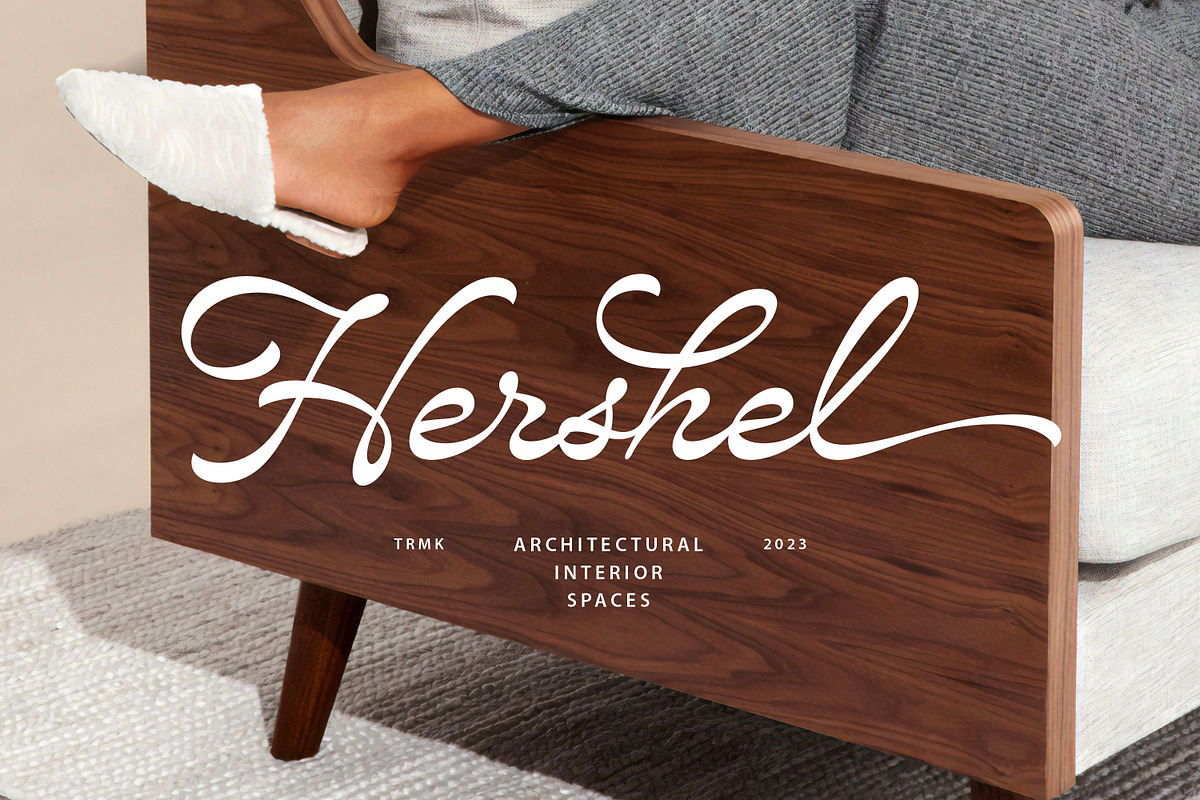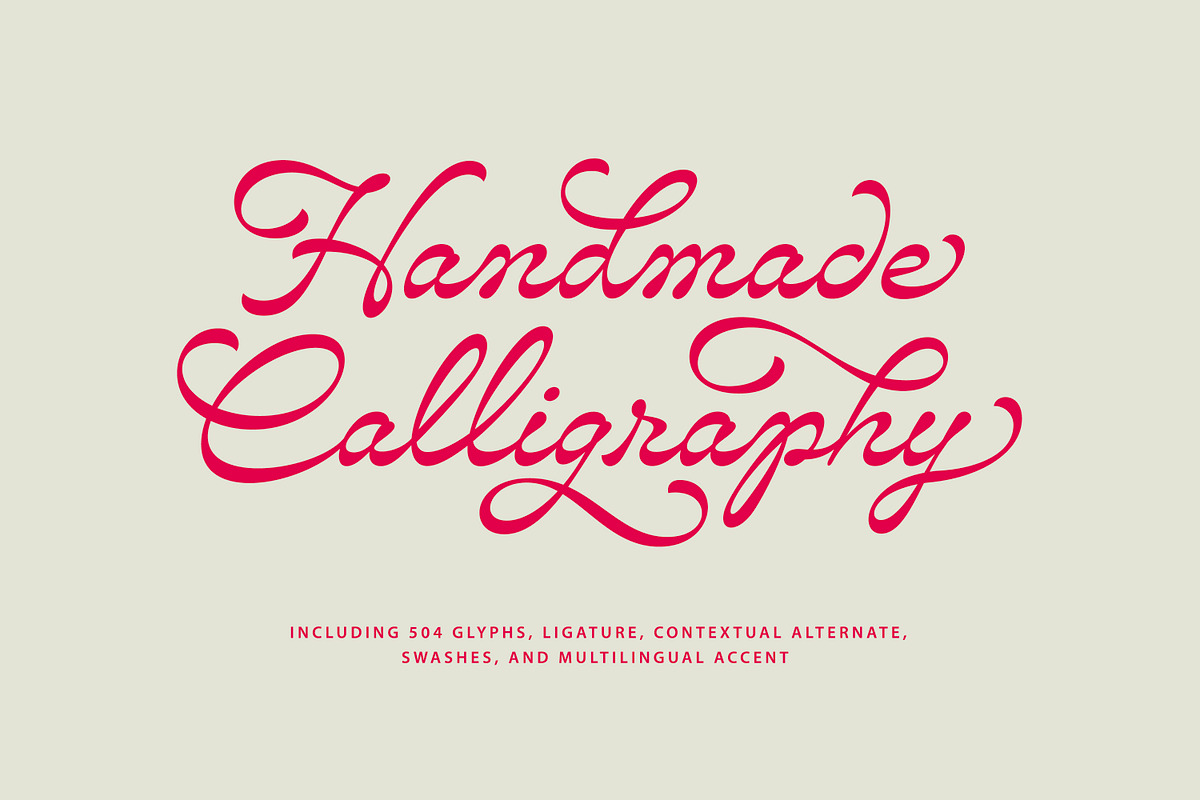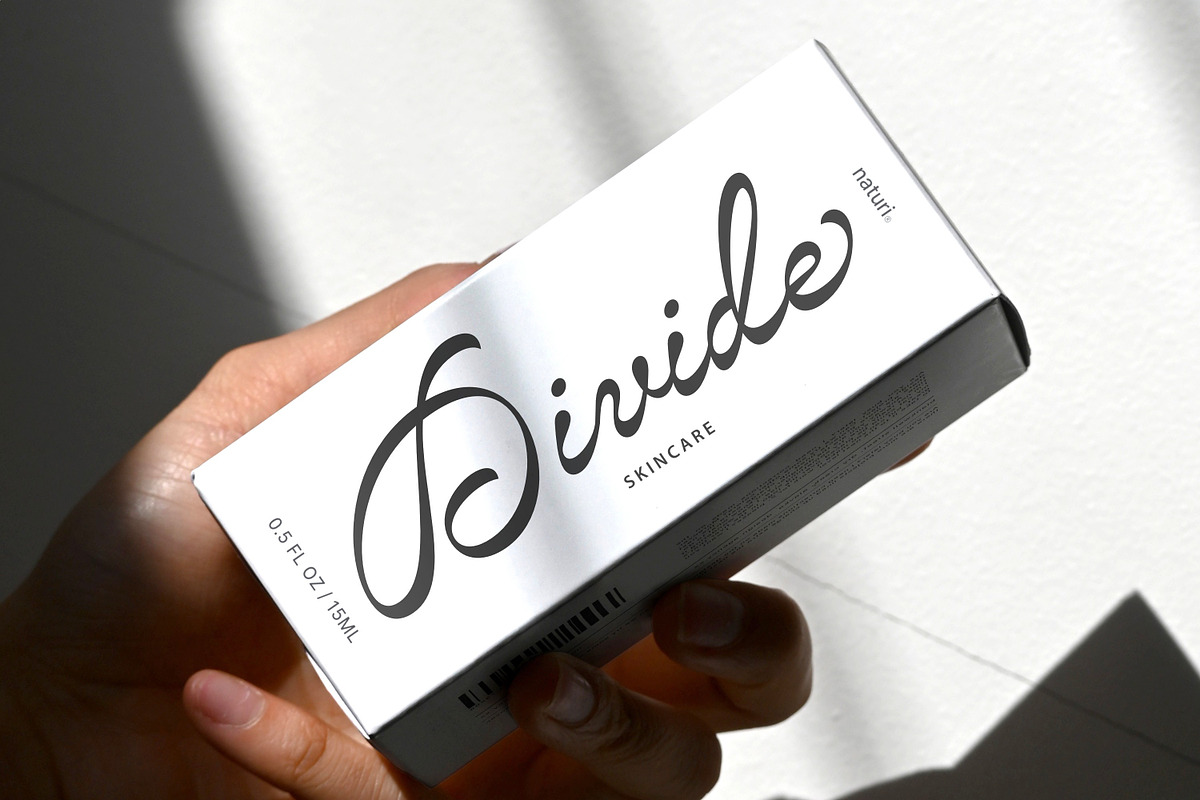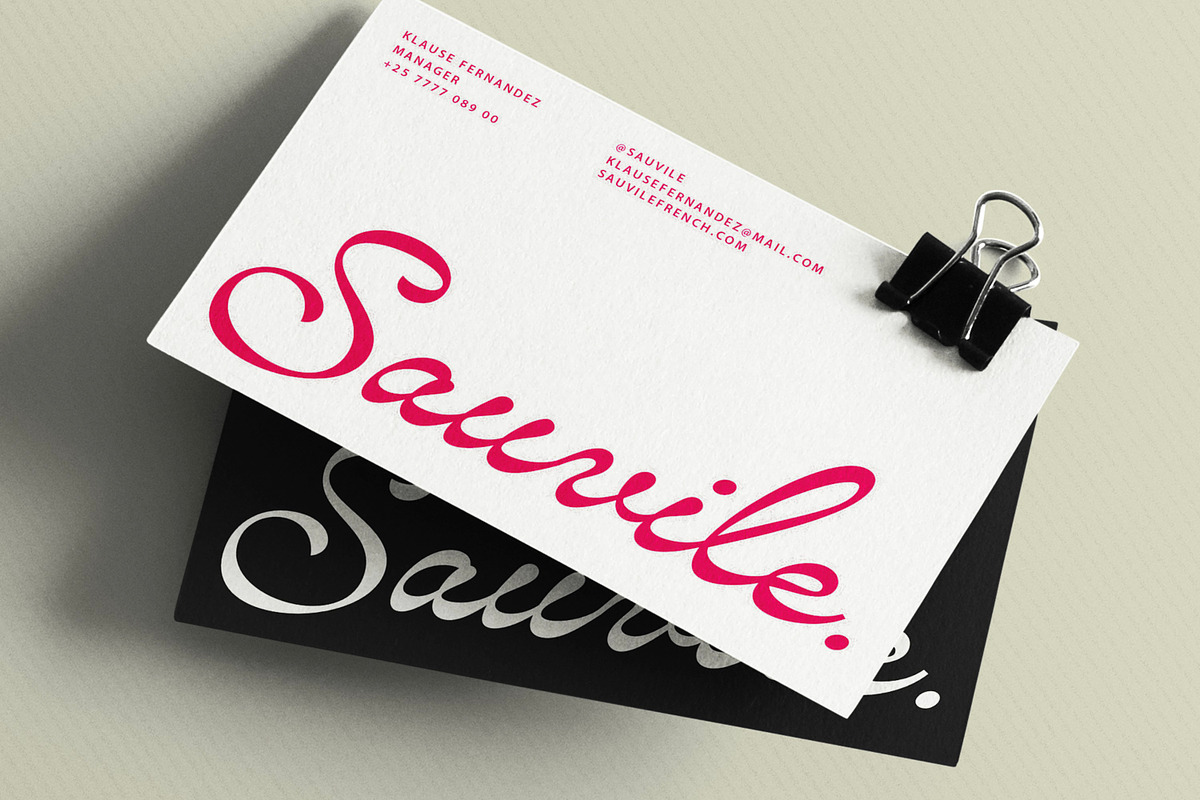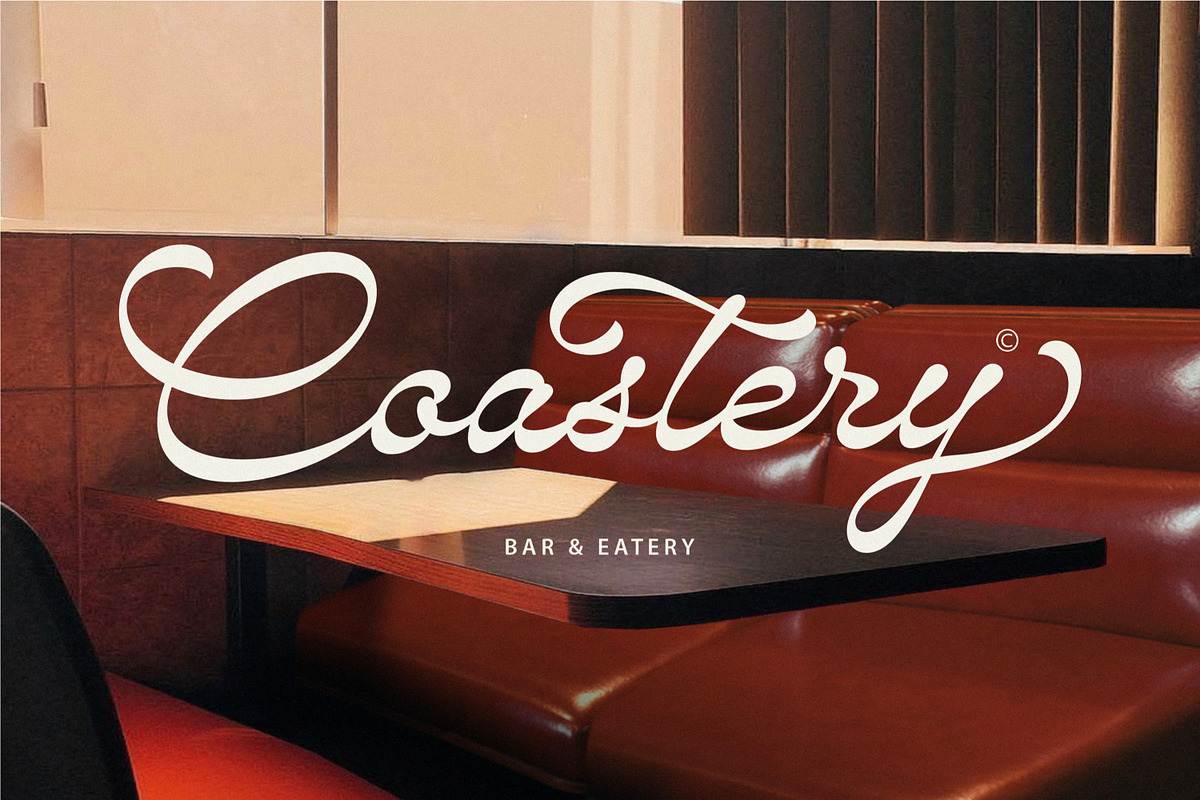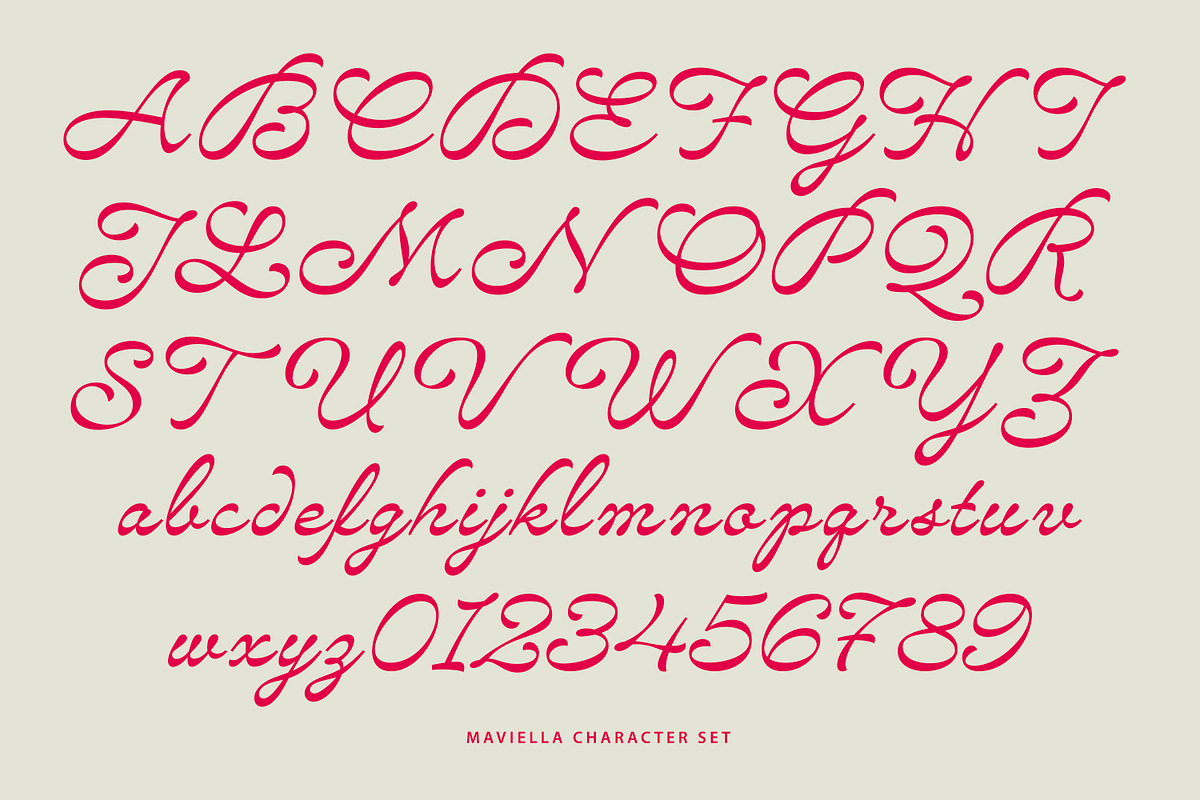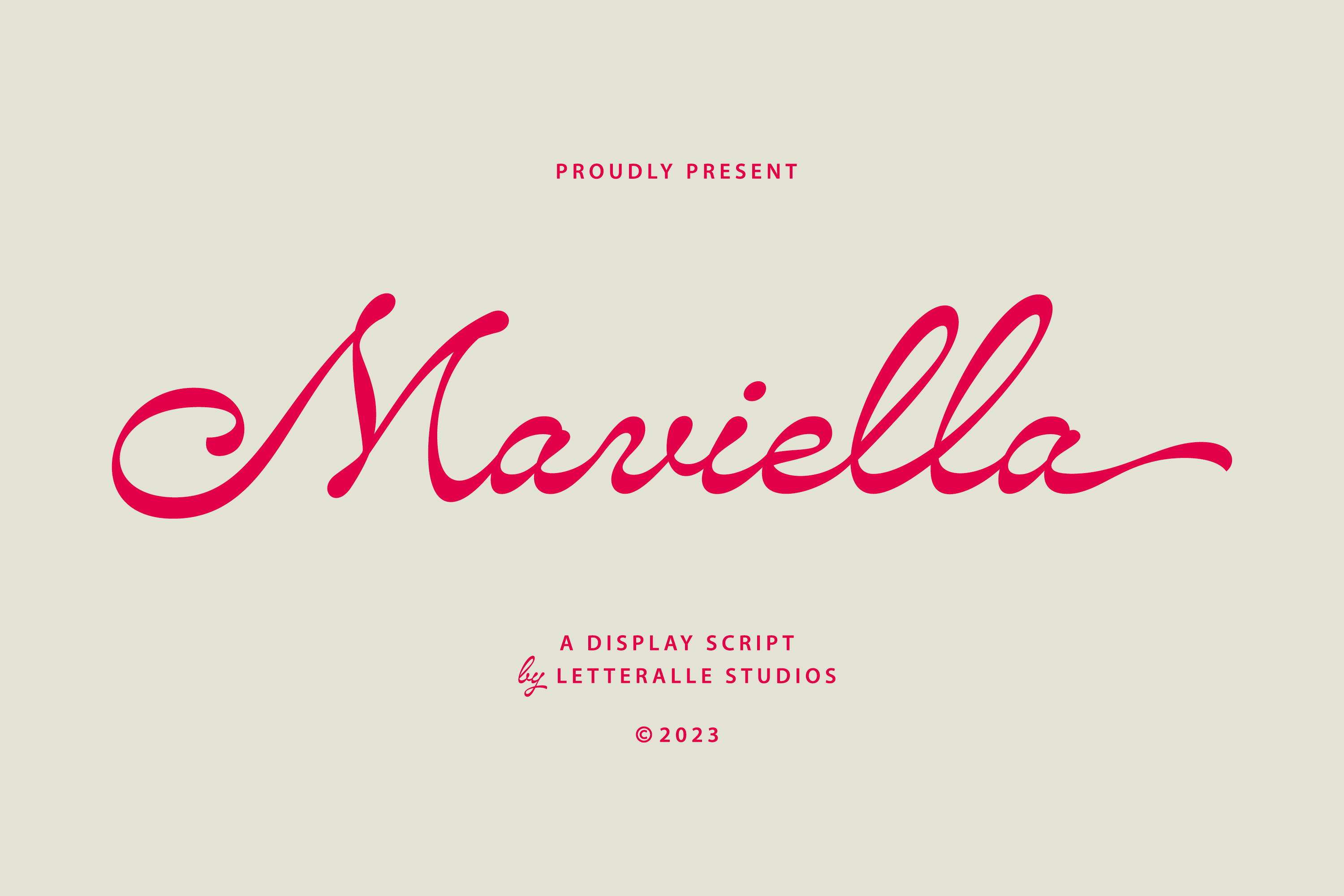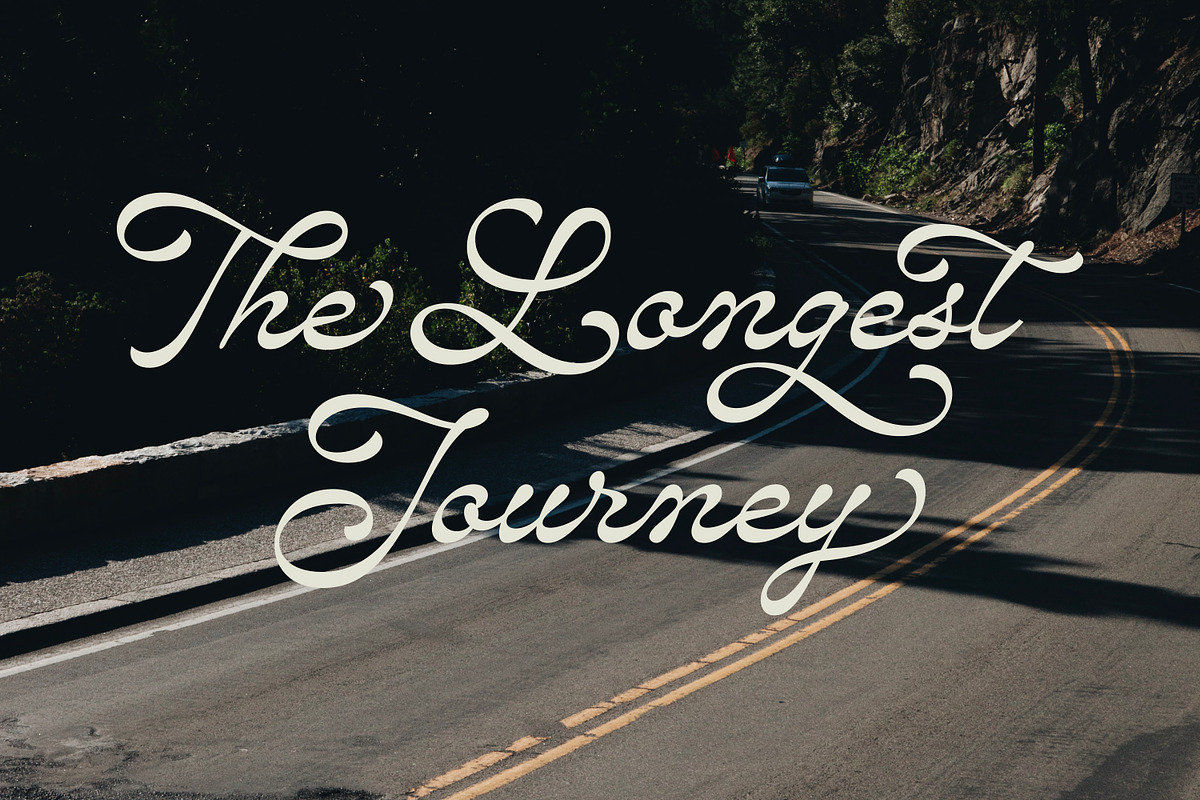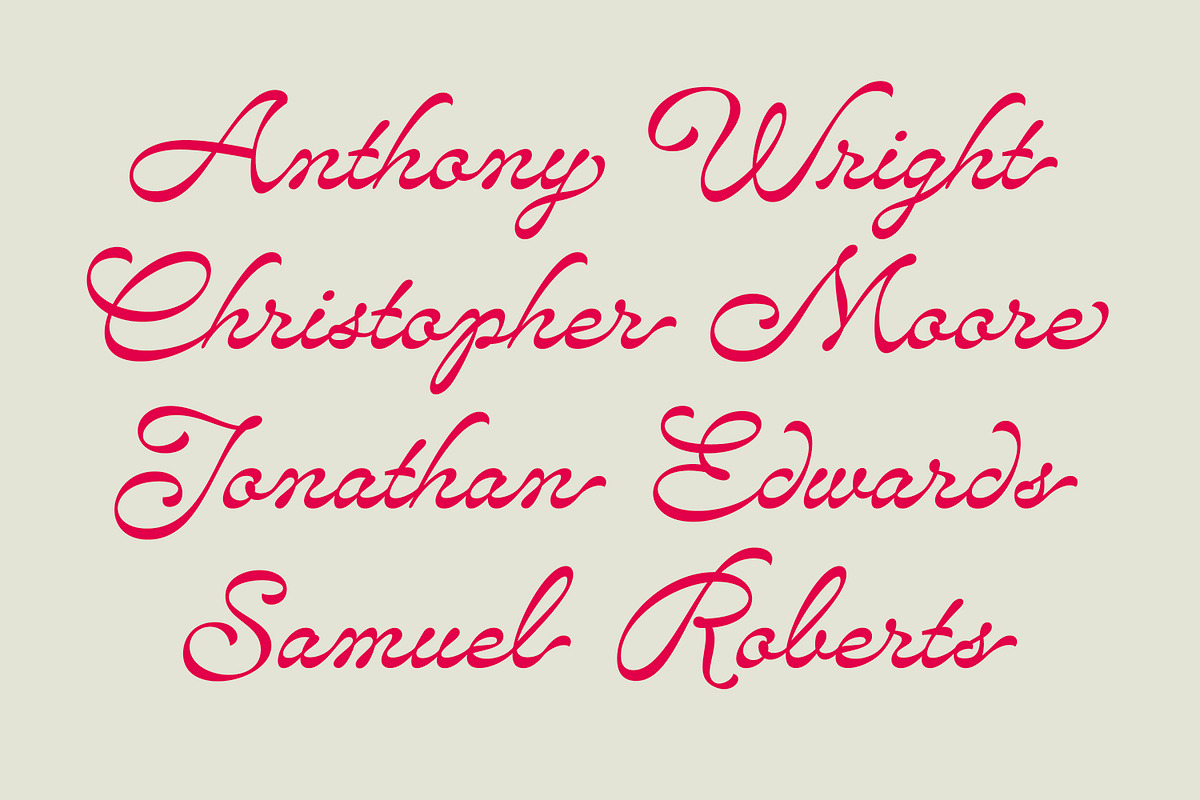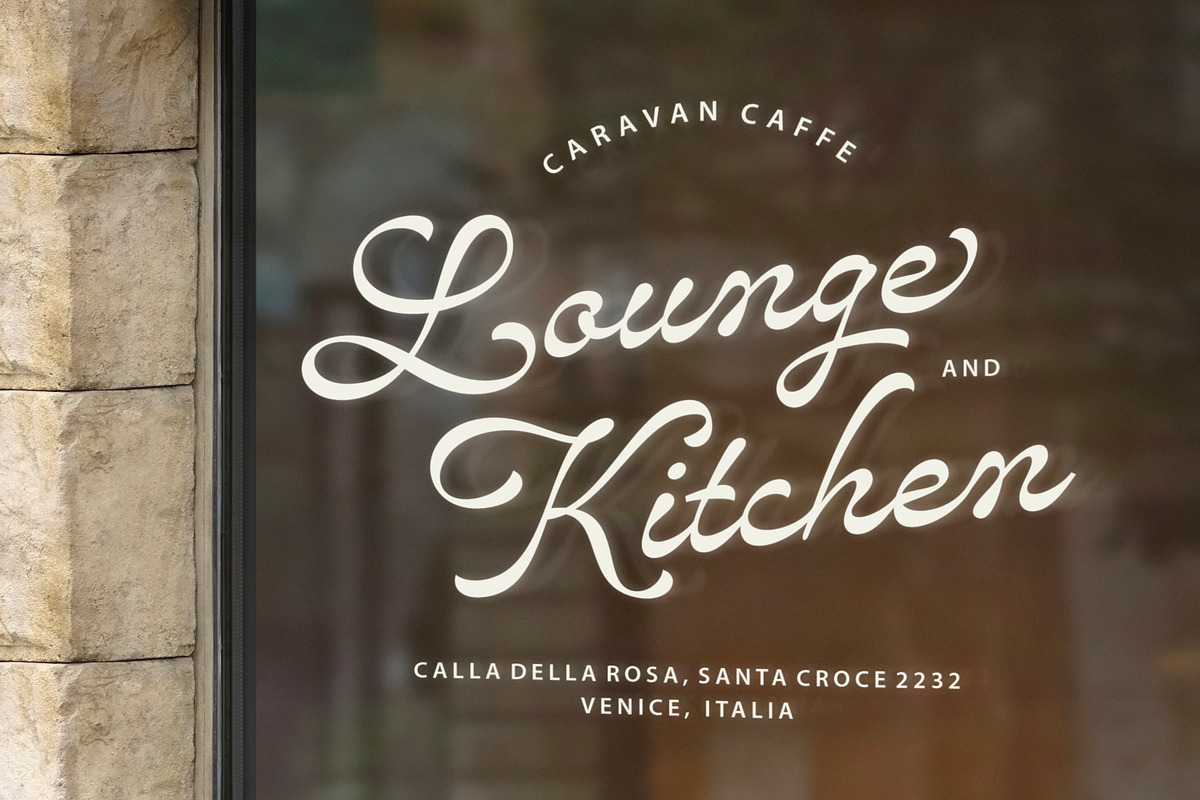
Maviella Font
Introducing Maviella, the epitome of timeless elegance and classic sophistication in the world of typography. Maviella is a font that seamlessly combines the charm of classic design with a touch of fancy intricacy.
Maviella is the ideal choice for those seeking to infuse their designs with a classic, yet fancy, aesthetic. It’s distinct character and exquisite details make it the perfect font for projects that demand a touch of sophistication and elegance. Whether you're working on logos, merch, ads, social media post, wedding invitations, restaurant menus, or high-end branding, Maviella's classic charm will lend your design a refined and timeless quality.
- Multilingual Accent